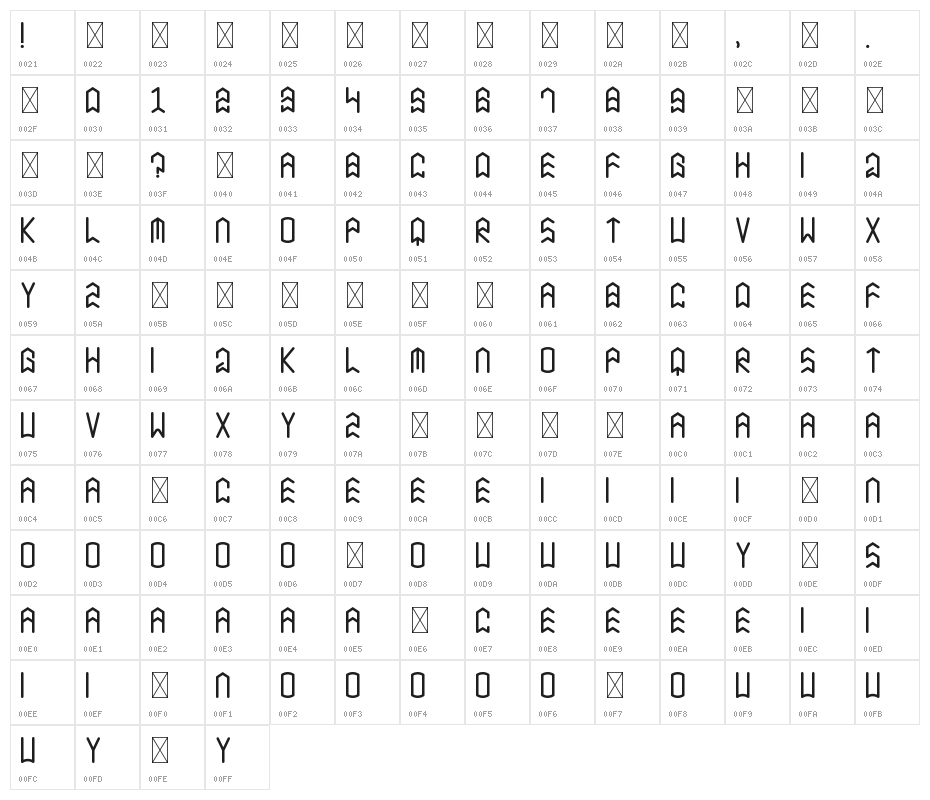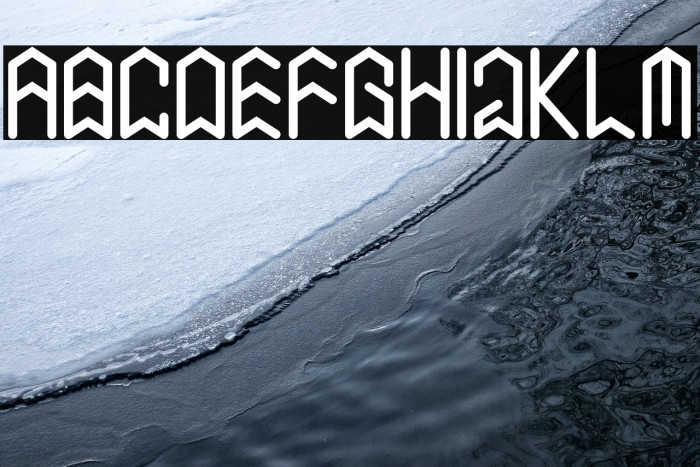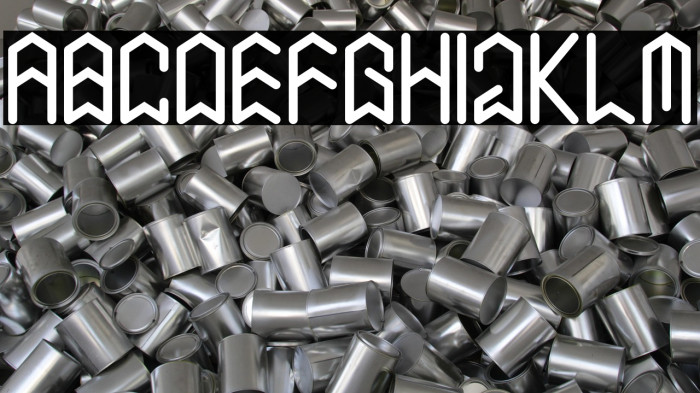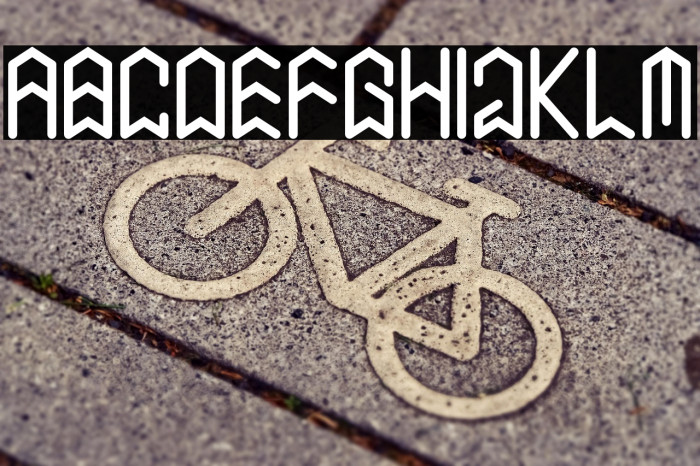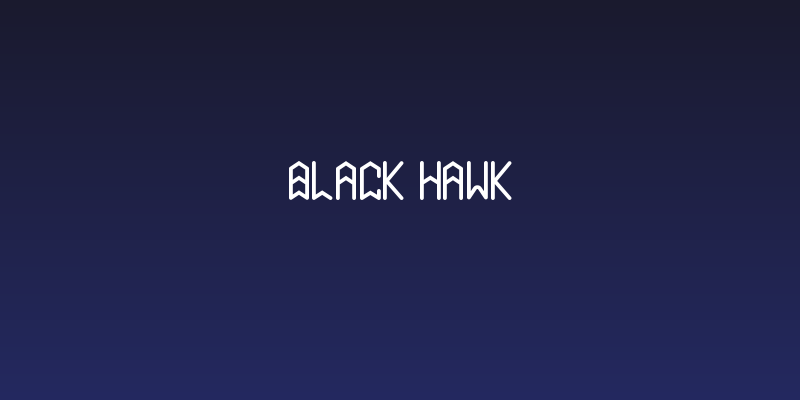
Black Hawk Font
Black Hawk Description
This font features a bold, geometric design with sharp, angular lines and a futuristic aesthetic. The uppercase letters are distinct with a consistent height and width, creating a uniform appearance. The numbers follow the same geometric style, making them easily recognizable. The font lacks lowercase letters, focusing on a strong, impactful presence. The special characters are missing, which might limit its versatility. Overall, this font is designed for attention-grabbing headlines or logos, where a modern and edgy look is desired.
| Proposed Projects | Ideal for sci-fi themed projects, modern branding, or tech-related logos. |